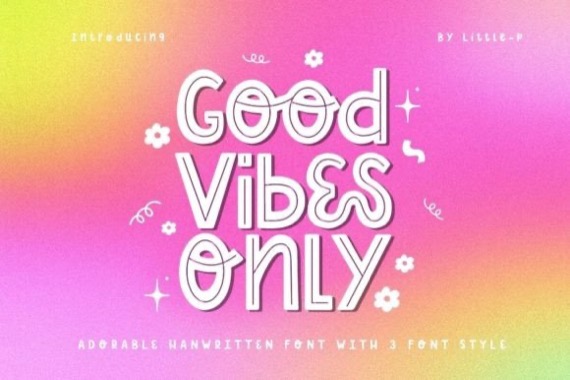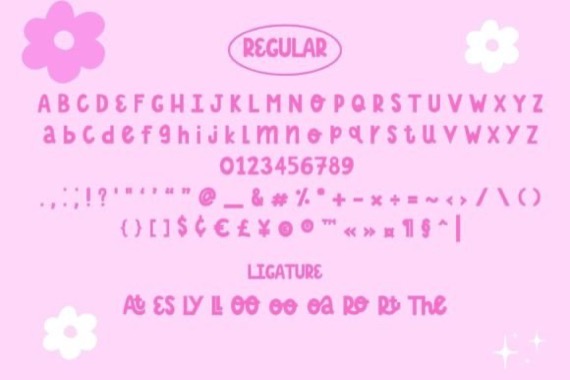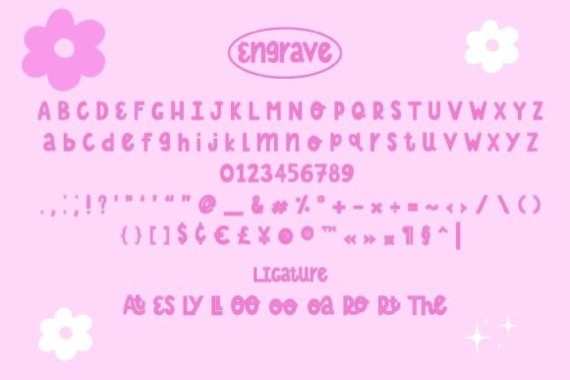
Introducing Good Vibes Only Font by Issie_Studio, the font with unique characteristics and three versatile styles to suit your creative needs. With the regular font, line font, and engrave font options, this stylish and playful inline display font allows for endless possibilities. “Good Vibes Only” is the perfect choice for a wide range of projects.
Whether you’re working on craft projects, designing birthday cards or invitations, creating eye-catching T-shirt graphics, producing merchandise, designing stickers, crafting inspiring quotes for social media, adding charm to pillows, mugs, or tote bags, this font has got you covered. Its handwriting-inspired charm adds a personal touch, while the playful inline style brings a sense of fun and vibrancy to your designs. Unleash your creativity and let “Good Vibes Only” be your go-to font for spreading positivity and capturing attention. Get ready to make a statement with this stylish and versatile font, perfectly suited for a variety of creative endeavors.
Good Vibes Only Display Font
Designer, Publisher: Issie_Studio